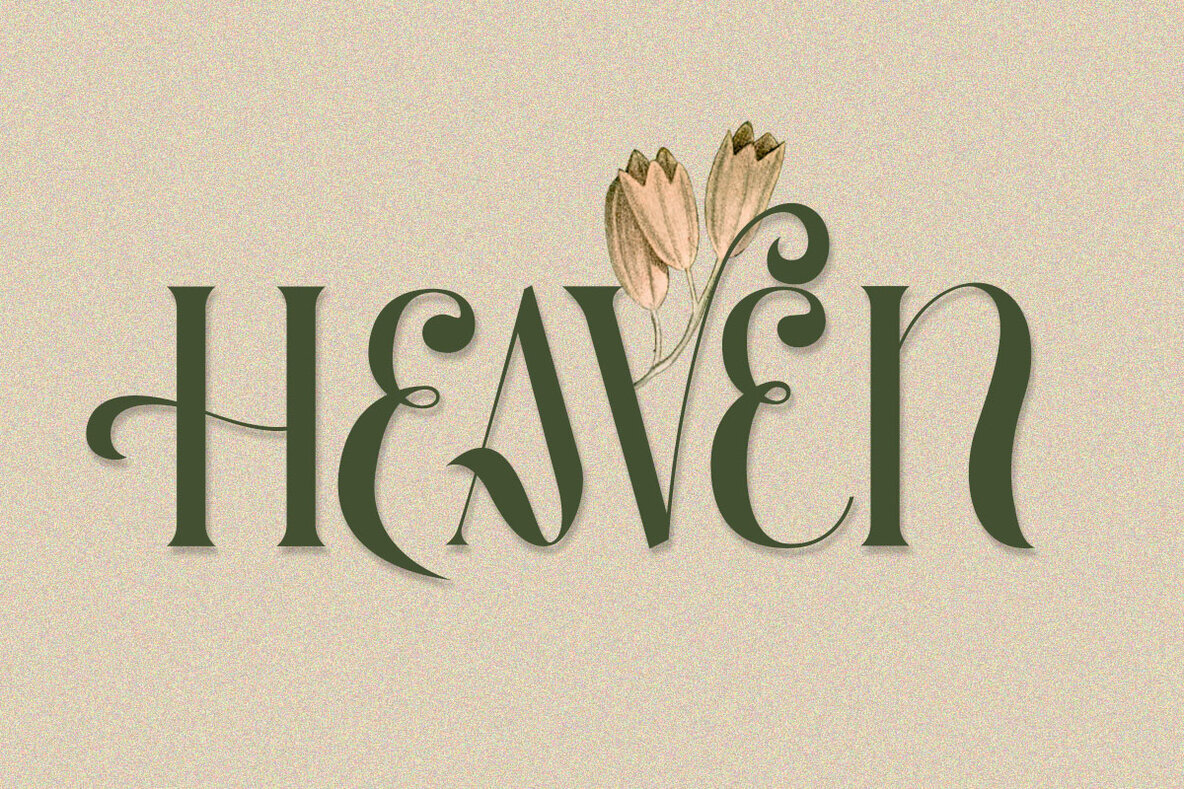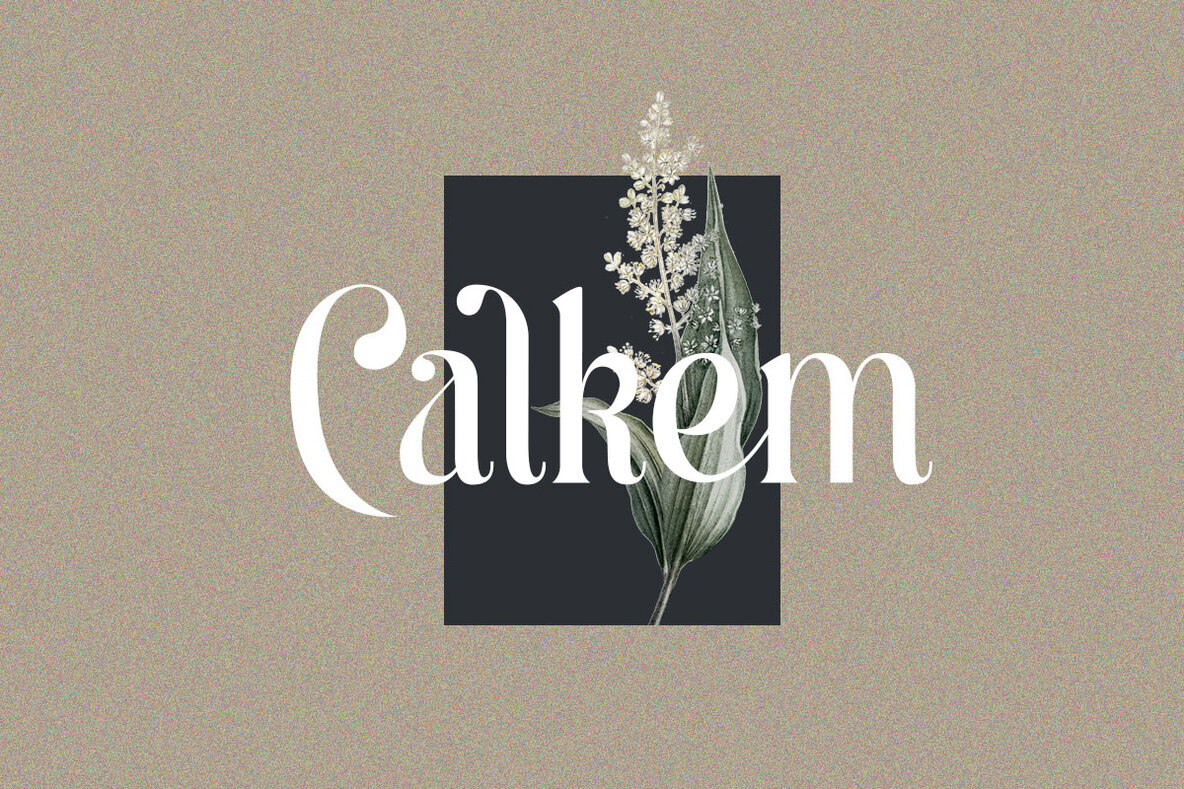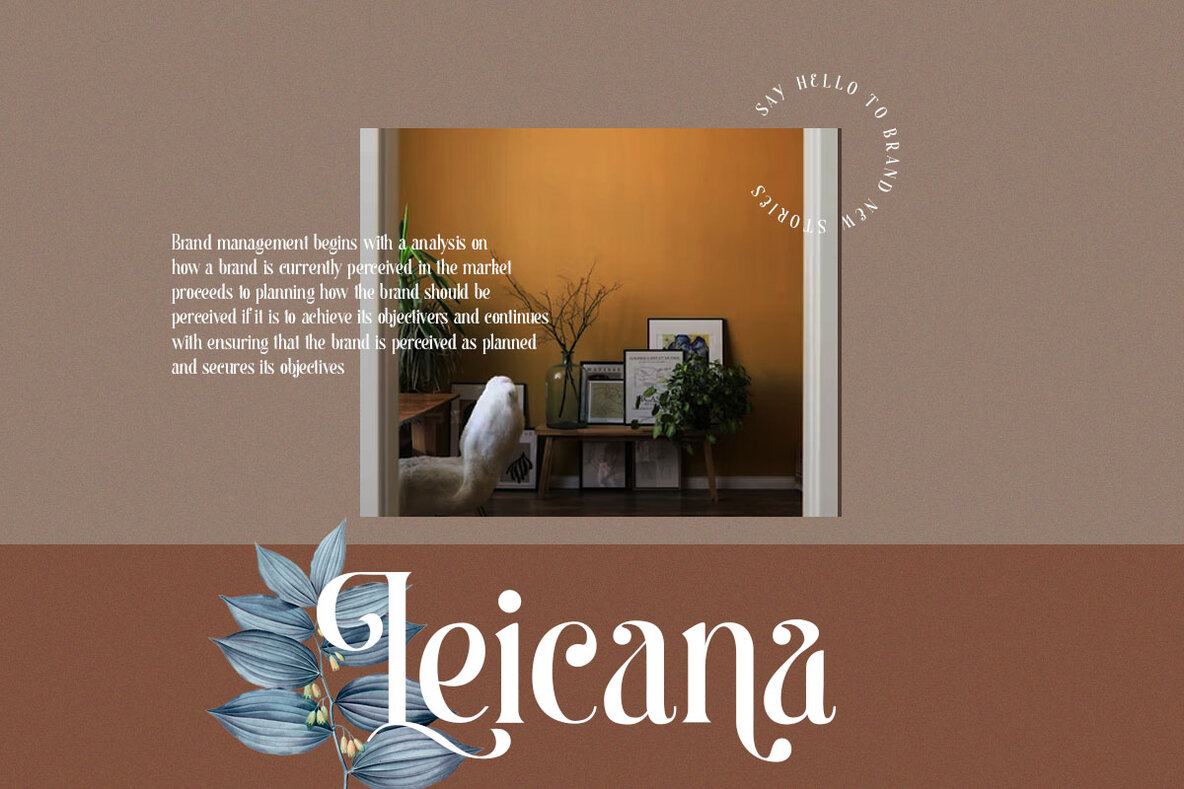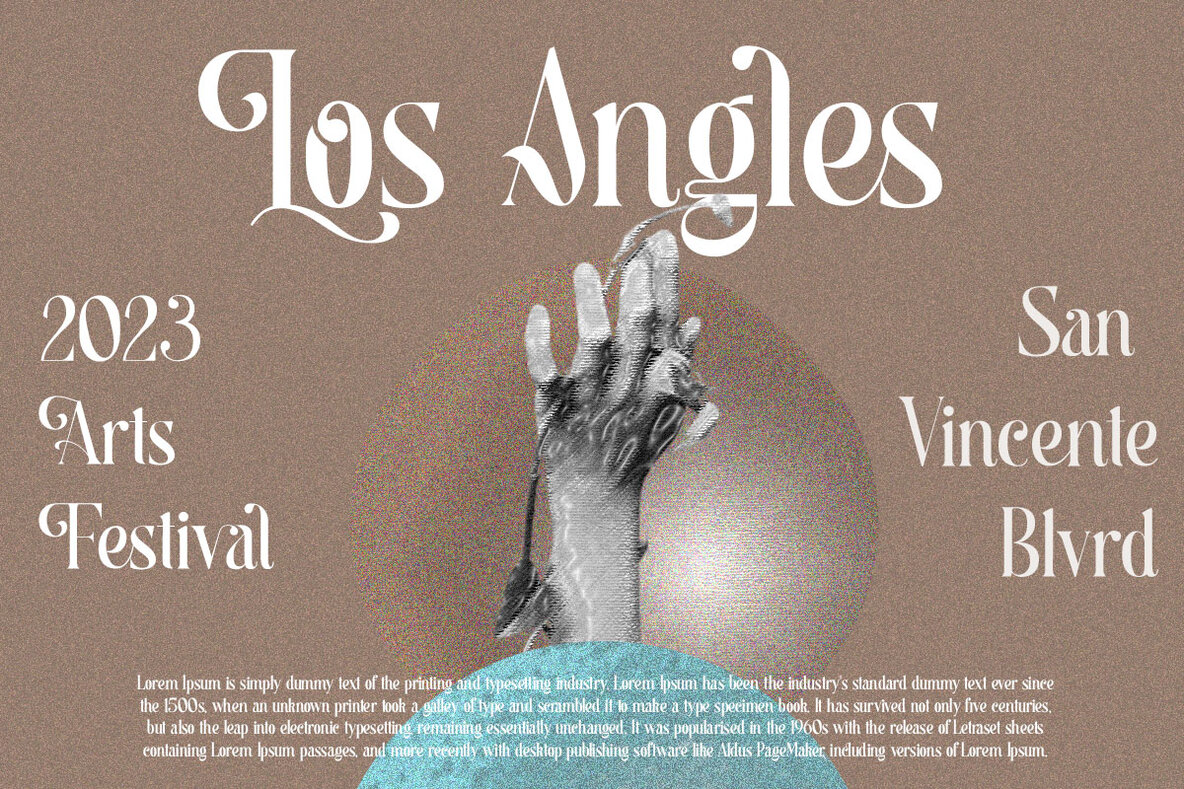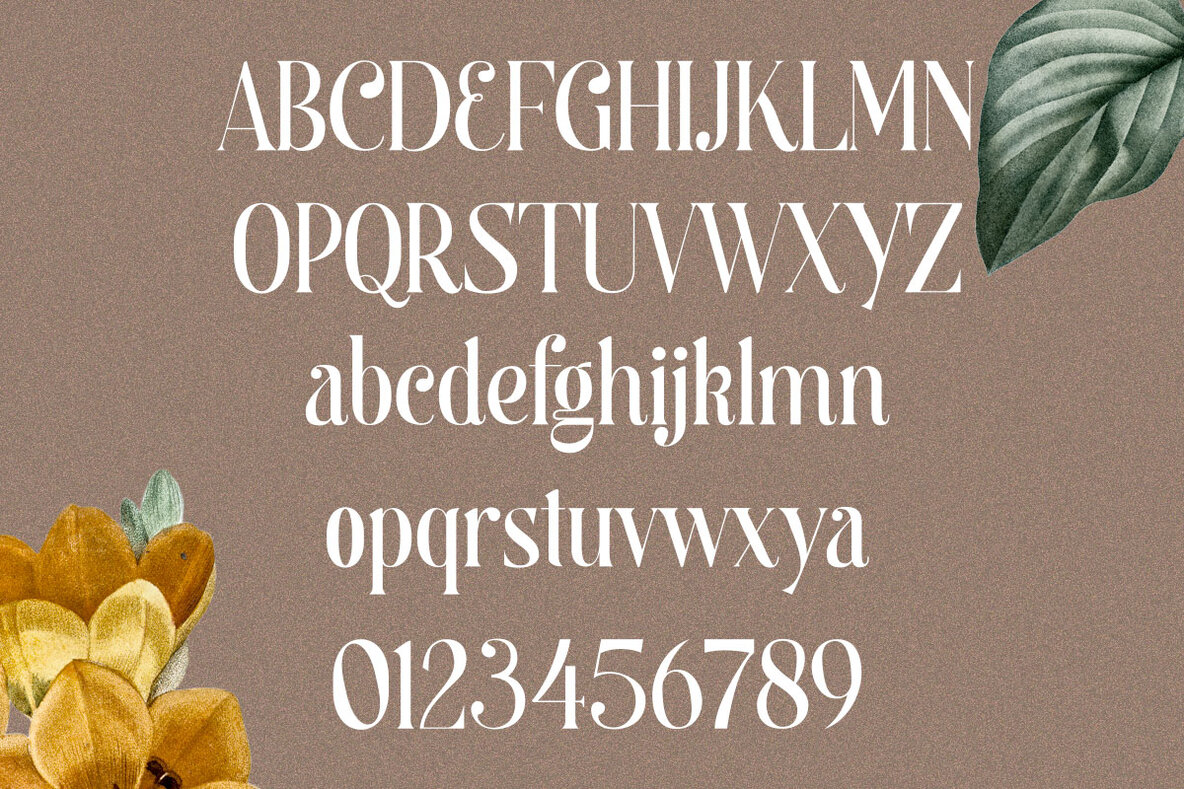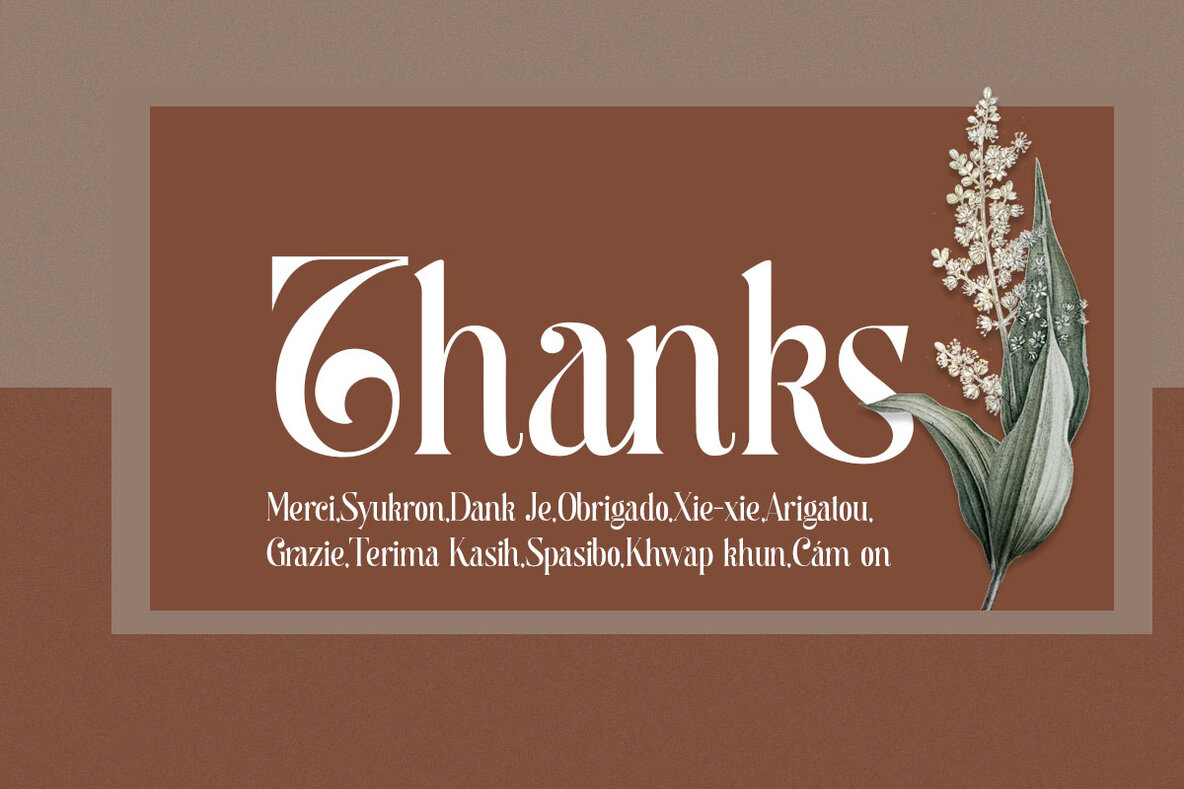
Begova Font
Begova
Begova is a classic and stylish display serif font designed to enhance any project with its elegant appeal. Ideal for use in headings, logos, branding, magazines, product packaging, and invitations, Begova brings a touch of sophistication to your designs. Featuring clean lines and smooth curves, this font offers a perfect balance for high-impact visuals.Begova: Stylish Serif with Rich Stylistic Alternates